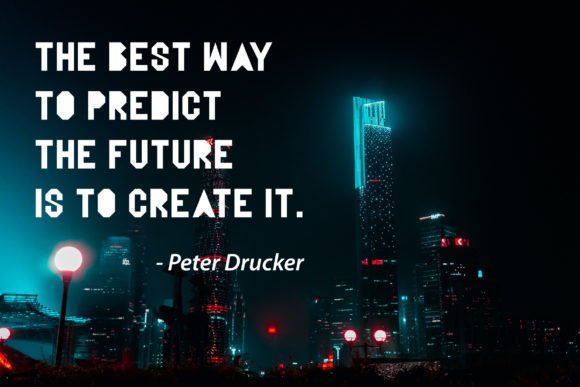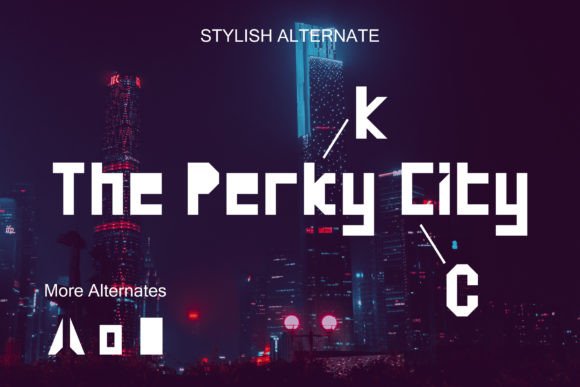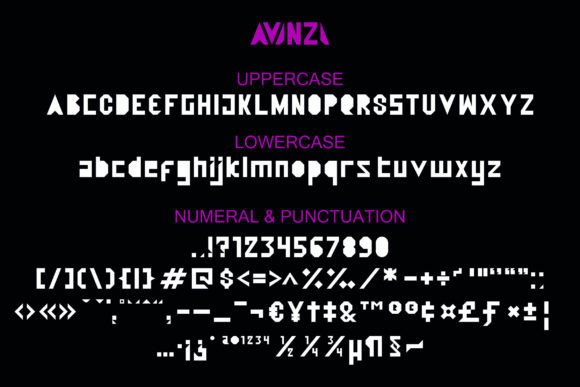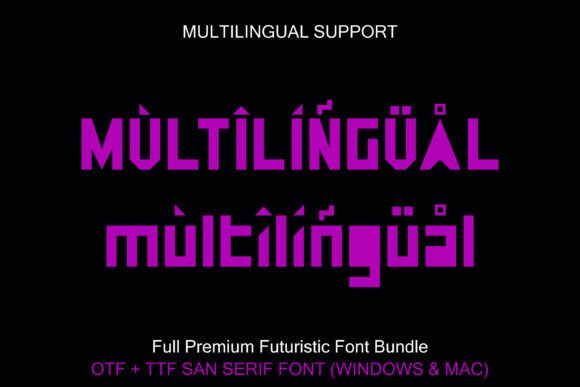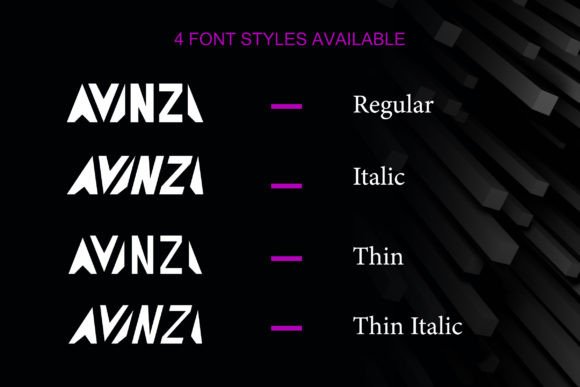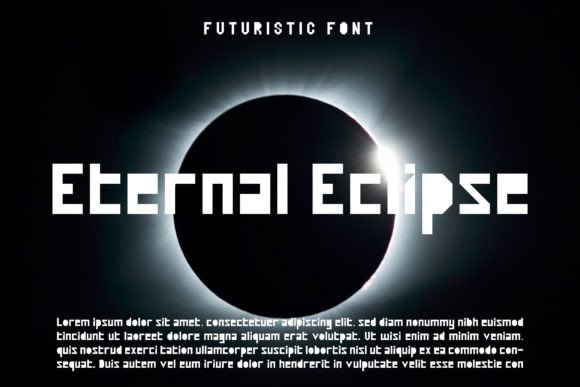
Avanza Font: The Ultimate Choice for Bold and Daring Typography
Avanza Font is an incredibly cool and futuristic display font that has been making waves in the design world. Its bold and daring style makes it the perfect choice for product packaging, branding, and other projects that require a statement piece. In this article, we’ll dive into the world of Avanza Font, exploring its features, benefits, and uses, as well as provide tips and inspiration for designers and crafters.
The Features of Avanza Font
Avanza Font is a sans-serif display font that boasts a unique and futuristic design. Its sleek lines, geometric shapes, and bold typography make it stand out from the crowd. The font comes in a range of weights and styles, allowing designers to experiment with different looks and feels. Whether you’re looking for a font that’s modern, edgy, or sophisticated, Avanza Font has got you covered.
The Benefits of Using Avanza Font
So, why should you choose Avanza Font for your next project? Here are just a few benefits of using this amazing font:
- Attention-grabbing: Avanza Font is designed to grab attention and make a statement. Its bold and daring style ensures that your message will be seen and remembered.
- Versatile: Avanza Font is incredibly versatile and can be used for a wide range of projects, from product packaging to branding and advertising.
- Easy to read: Despite its bold style, Avanza Font is surprisingly easy to read, making it perfect for headlines, titles, and other display text.
- Unique: Avanza Font has a unique and futuristic design that will set your project apart from the competition.
Using Avanza Font for Product Packaging
Avanza Font is an excellent choice for product packaging, particularly for brands that want to make a bold statement. Its futuristic design and bold typography can help your product stand out on store shelves and online. Here are a few tips for using Avanza Font for product packaging:
- Use it for headlines: Avanza Font is perfect for headlines and titles, making it an excellent choice for product packaging.
- Experiment with colors: Avanza Font looks great in a range of colors, so don’t be afraid to experiment and find the perfect hue for your brand.
- Keep it simple: While Avanza Font is bold and daring, it’s essential to keep your packaging design simple and easy to read.
Using Avanza Font for Branding and Advertising
Avanza Font is also an excellent choice for branding and advertising, particularly for companies that want to make a bold statement. Its unique and futuristic design can help your brand stand out and establish a strong identity. Here are a few tips for using Avanza Font for branding and advertising:
- Use it consistently: To establish a strong brand identity, it’s essential to use Avanza Font consistently across all your marketing materials.
- Experiment with different weights: Avanza Font comes in a range of weights and styles, so experiment with different looks and feels to find the one that works best for your brand.
- Pair it with other fonts: Avanza Font can be paired with other fonts to create a unique and visually appealing look.
Inspiration and Tips for Designers and Crafters
Avanza Font is an incredibly versatile font that can be used in a wide range of projects. Here are a few tips and inspiration for designers and crafters:
- Experiment with different styles: Avanza Font comes in a range of weights and styles, so experiment with different looks and feels to find the one that works best for your project.
- Use it for titles and headlines: Avanza Font is perfect for titles and headlines, making it an excellent choice for designers and crafters.
- Pair it with images: Avanza Font can be paired with images and graphics to create a visually appealing look.
Avanza Font is an incredibly cool and futuristic display font that’s perfect for product packaging, branding, and other projects that require bold and daring typography. Its unique and futuristic design, attention-grabbing style, and versatility make it an excellent choice for designers and crafters. With its range of weights and styles, Avanza Font is sure to become a staple in your font library.